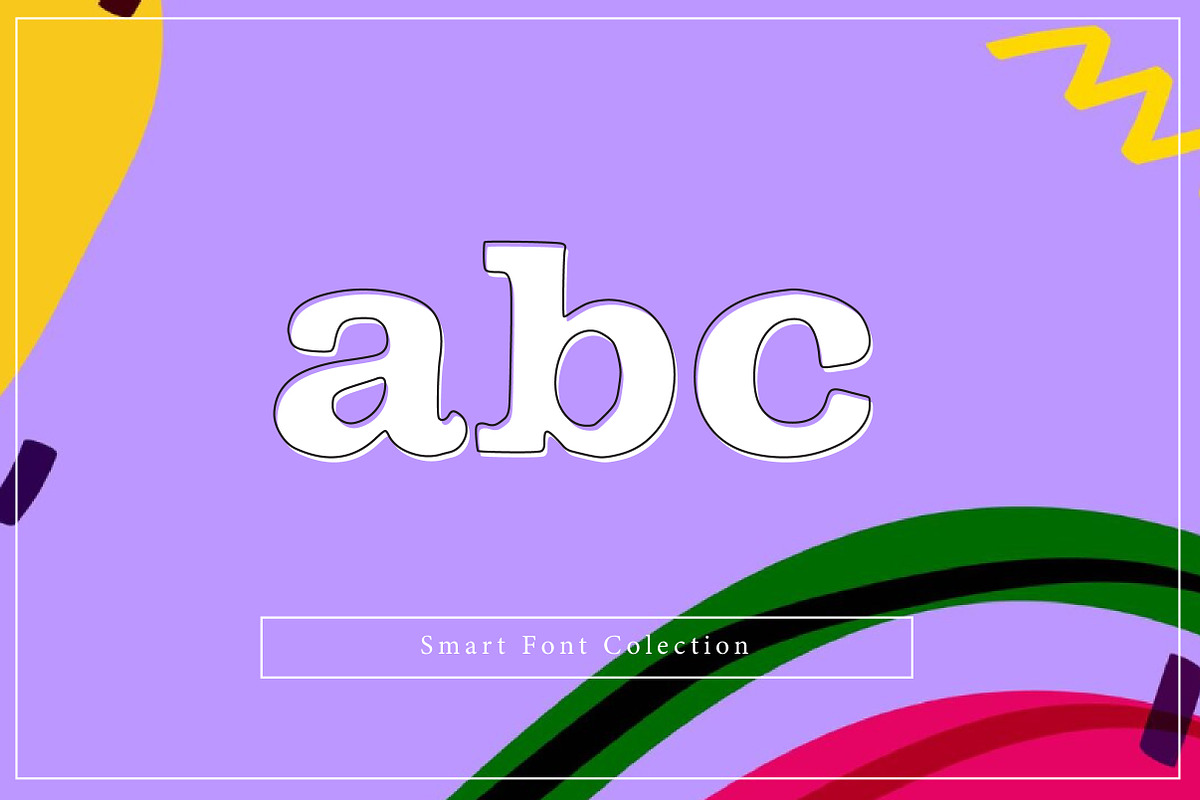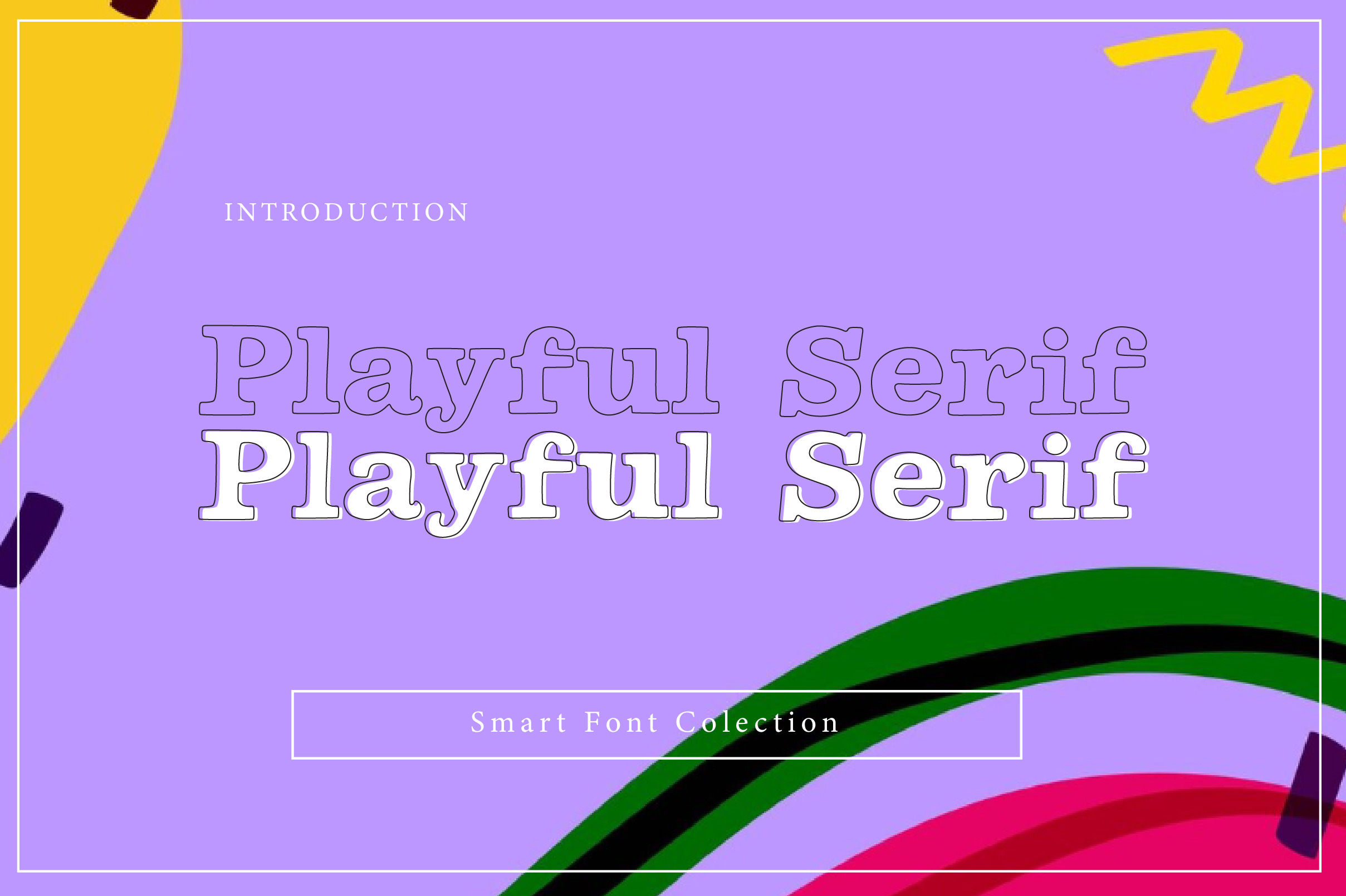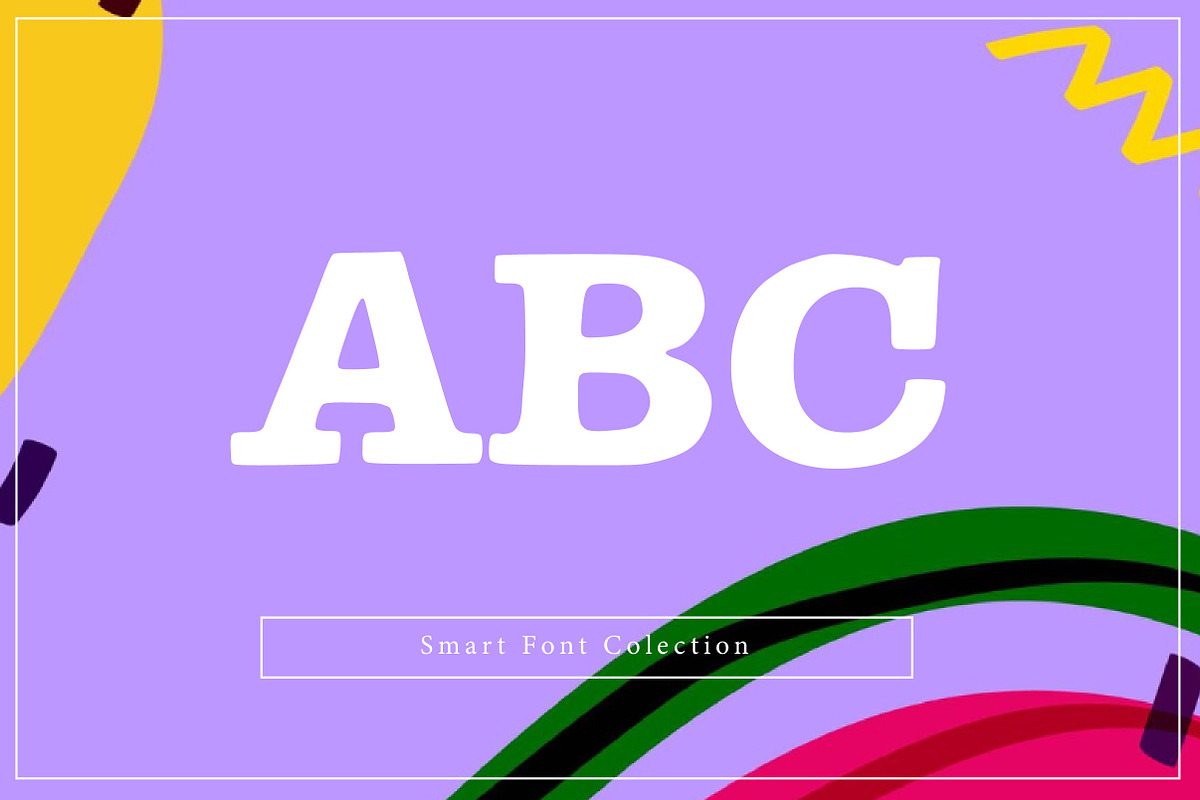
Playful Serif font
Playful Serif Font is a bold, friendly, and fun serif display typeface designed to add charm and personality to any project. With thick strokes, soft serif details, and a playful vintage-inspired look, this font is perfect for logos, kids designs, posters, packaging, branding, social media graphics, stickers, and creative headlines. Its strong readability and cheerful style make it ideal for modern playful designs, family-friendly branding, and eye-catching typography.